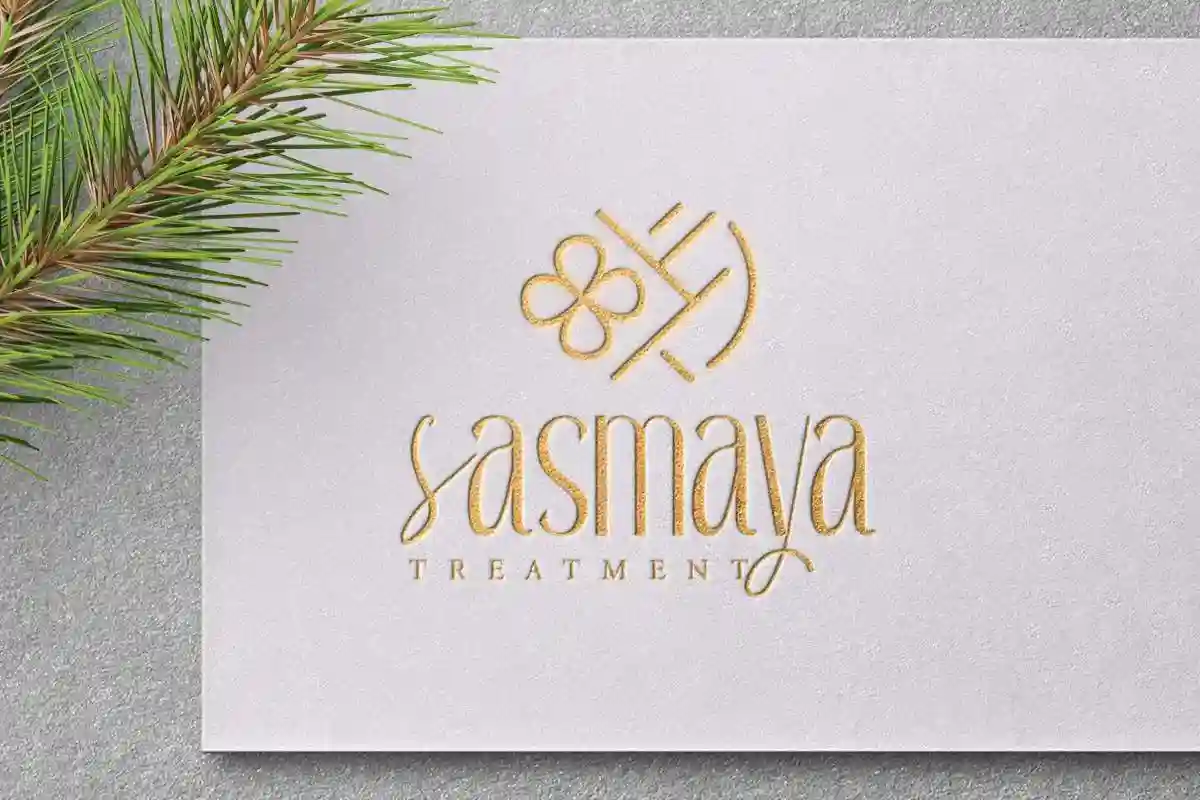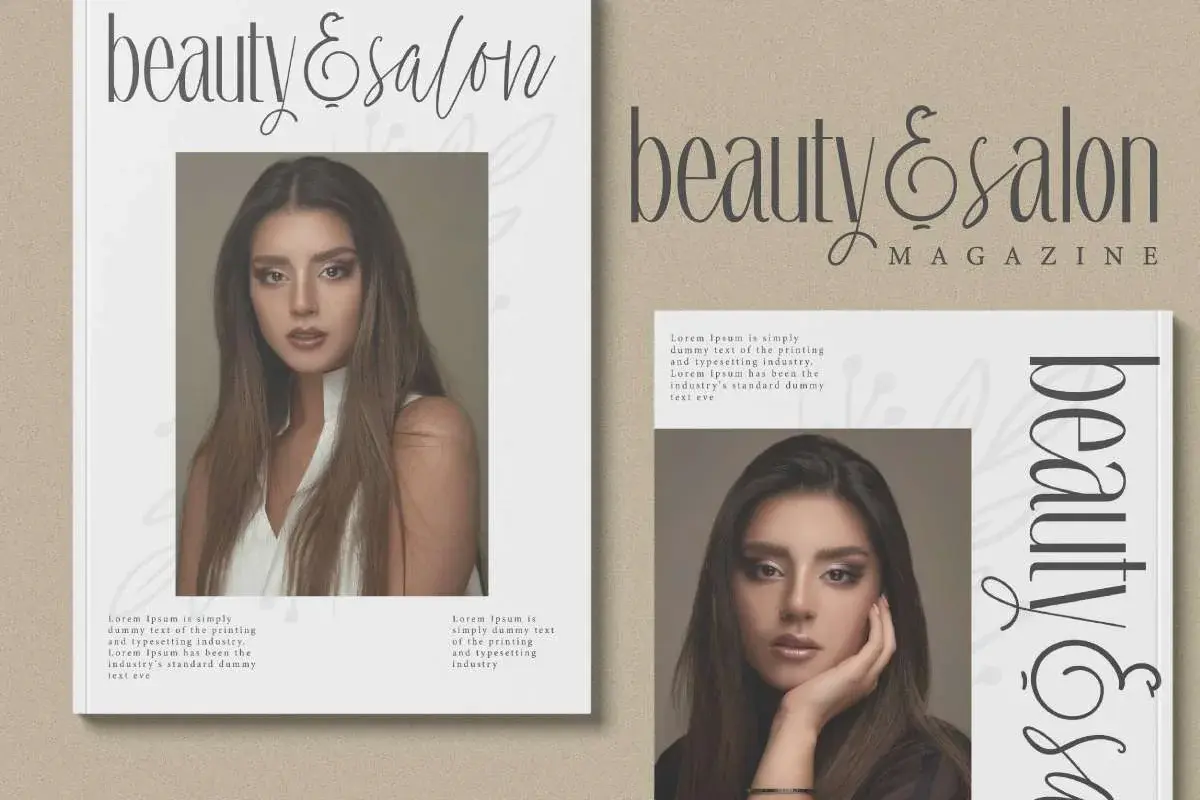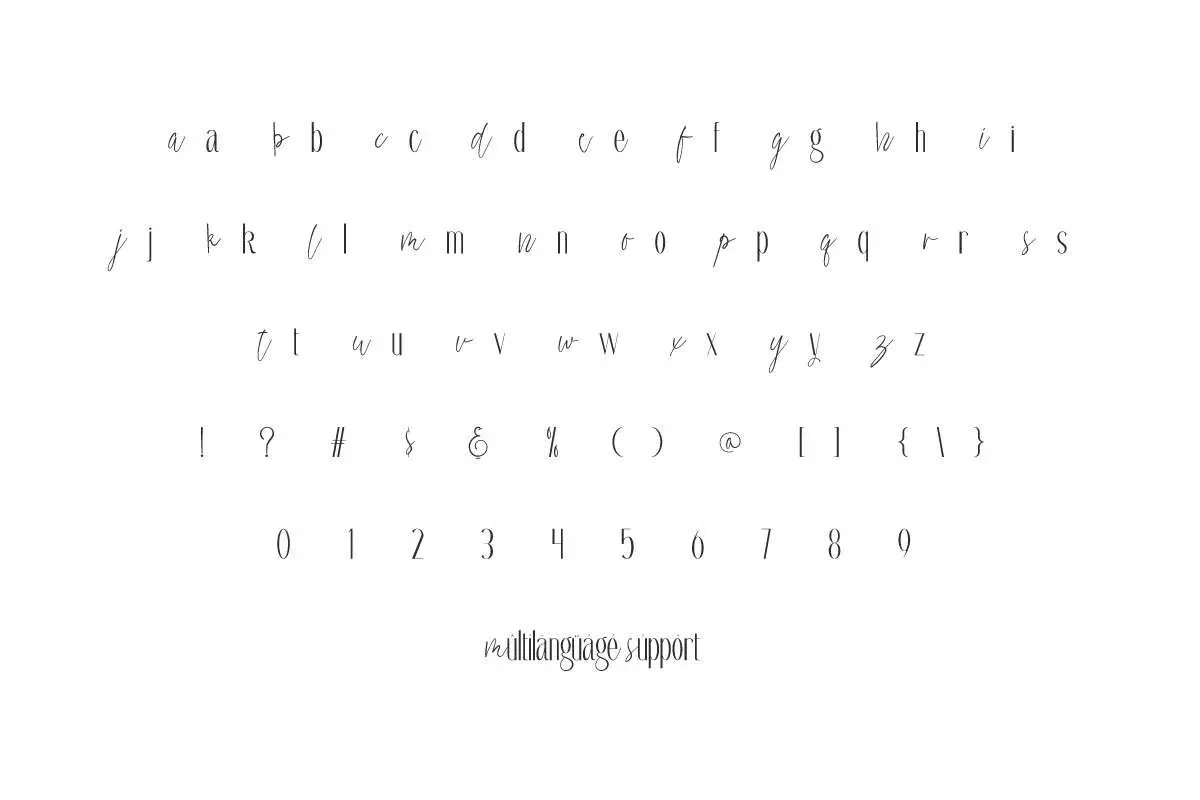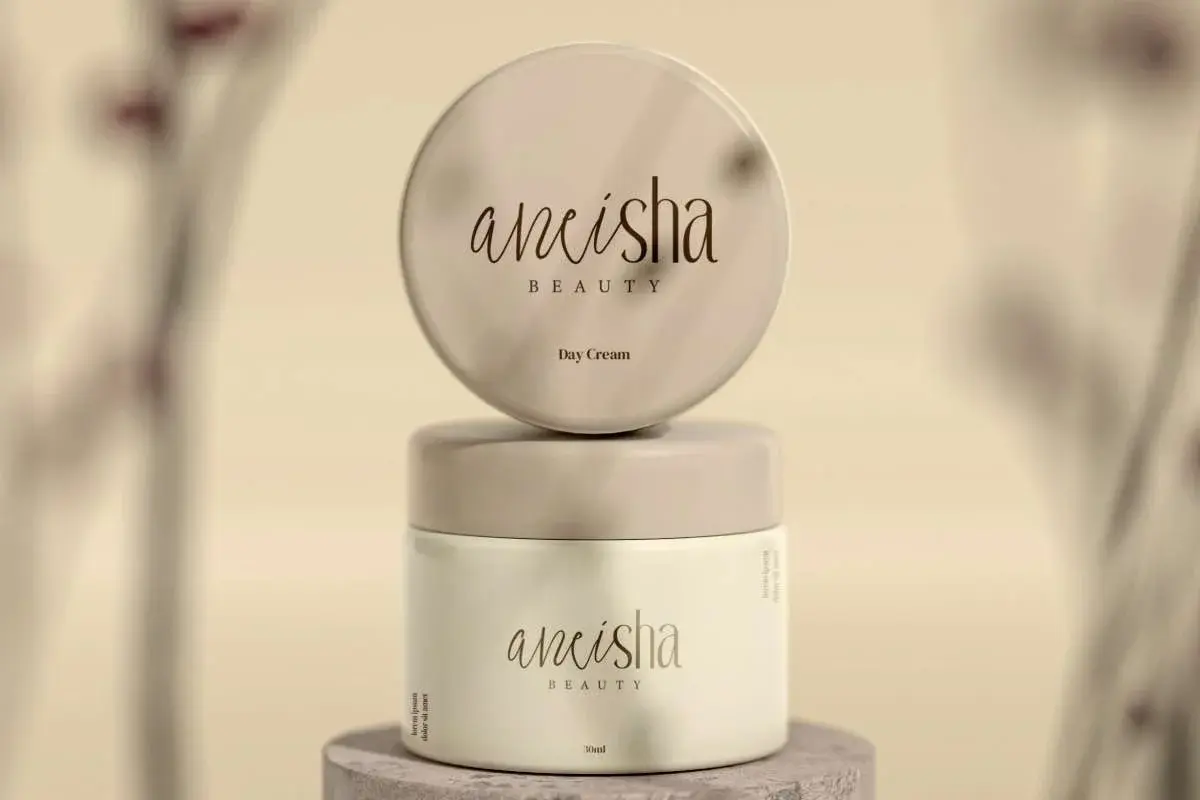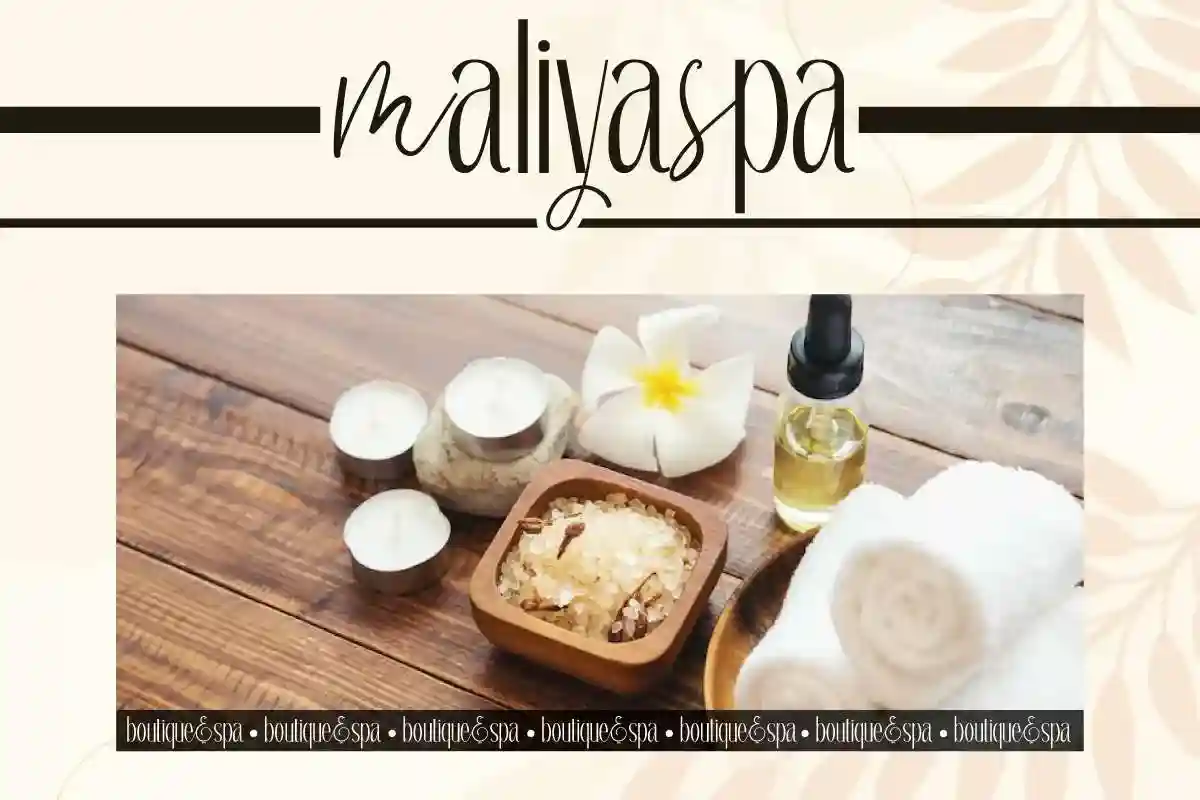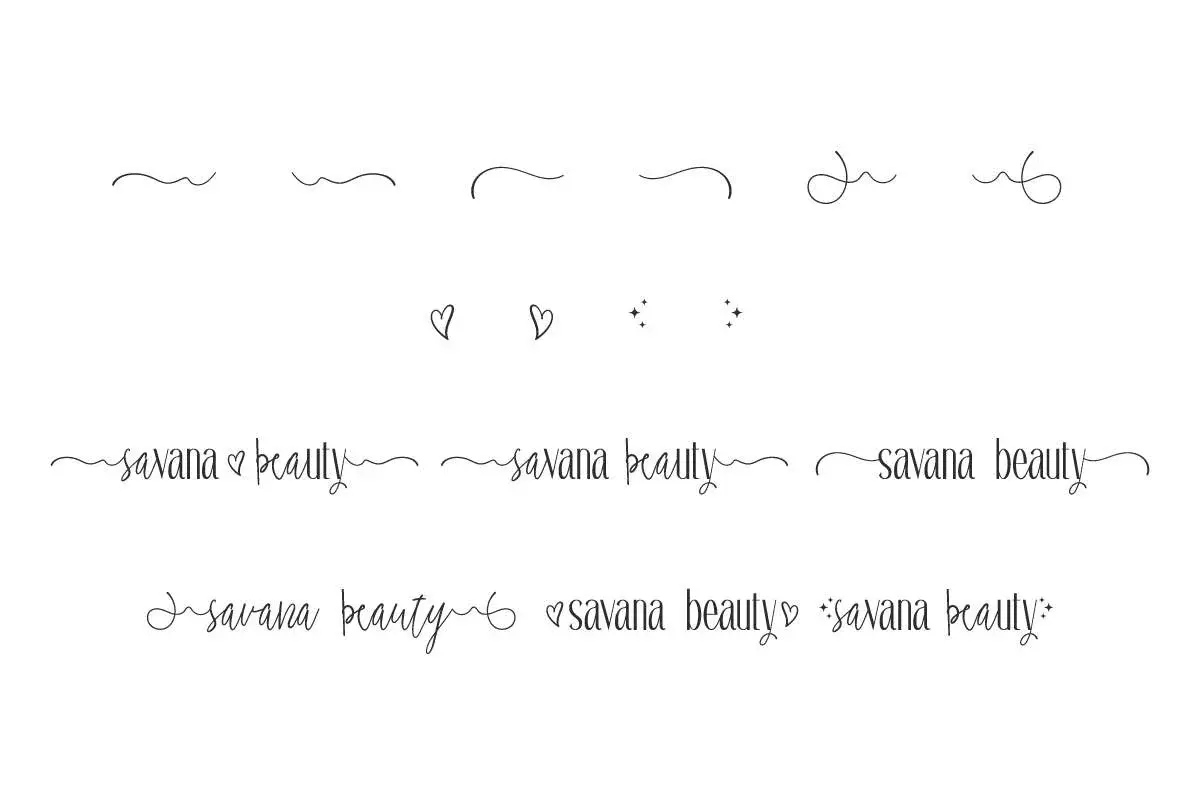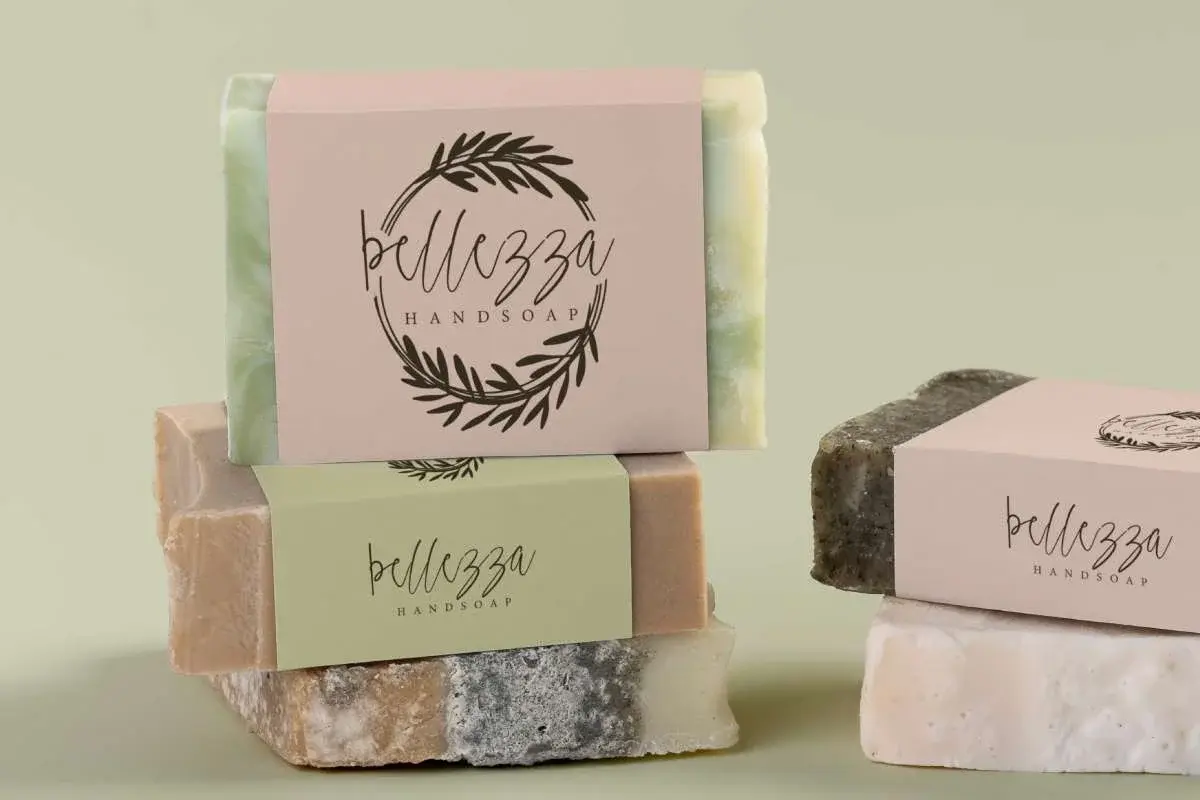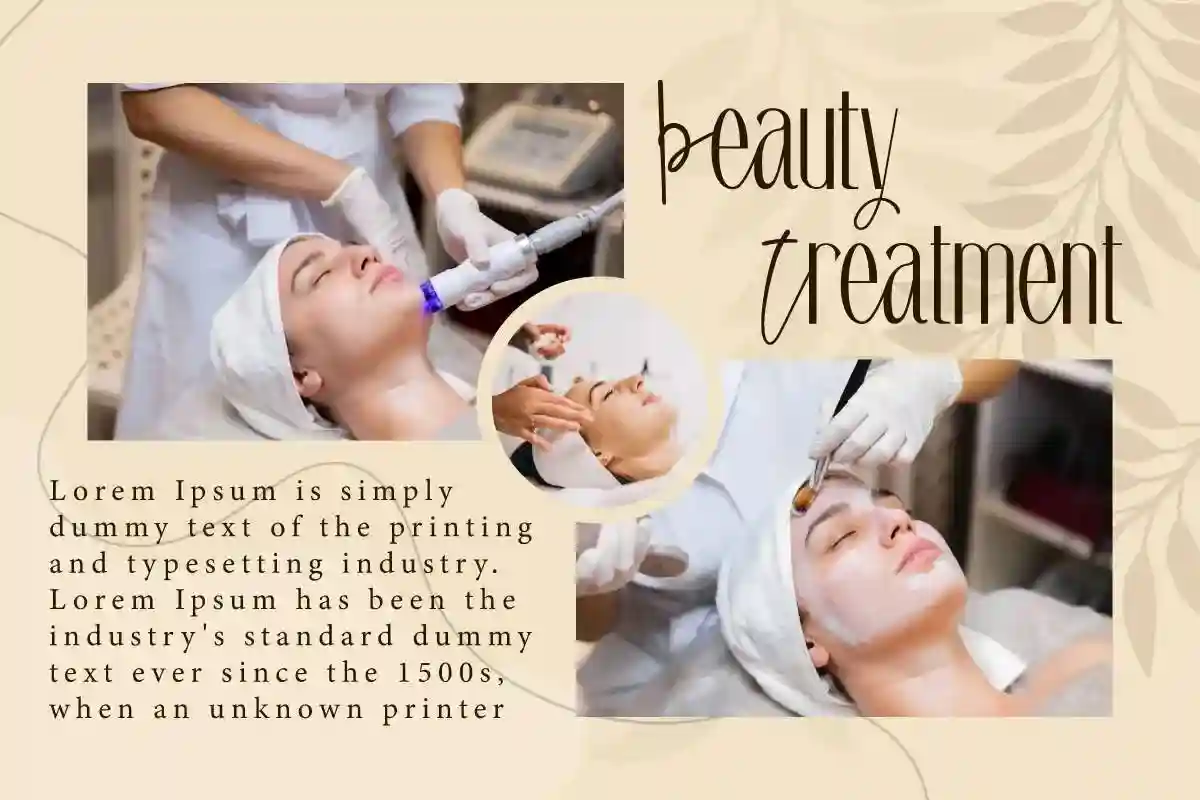
Savana Beauty Font is a charming couple display font. Specially present to complement the classy modern vibe, like fashion, headline, salon, website, etc.
Savana Beauty Font is a perfect display font that packs in two styles, elegant script and modern sans. It will bring an interesting touch to your design, such as apps, billboard, brand logo, brochure, business card, catalog, cover, embossed design, flyer, header, invitation, label, magazine catalog, mockup design, packaging design, poster, quote, screen print, signage, social media posts, stationery, sticker, title, website, and any projects.
Savana Beauty Font includes full set of Uppercase and Lowercase Basic Characters with different looks, Number, Punctuation, and Symbol. It will be different because it is not a duo font. The stylistic differences between uppercase and lowercase put together create a high-end touch to your business, such as accessories, architect, boutique, beauty clinic, cosmetic, event organizer, fashion designer, florist, furniture, perfume brand, photography, printing, publishing, real estate, skincare, spa salon, wedding, writer, and many more.